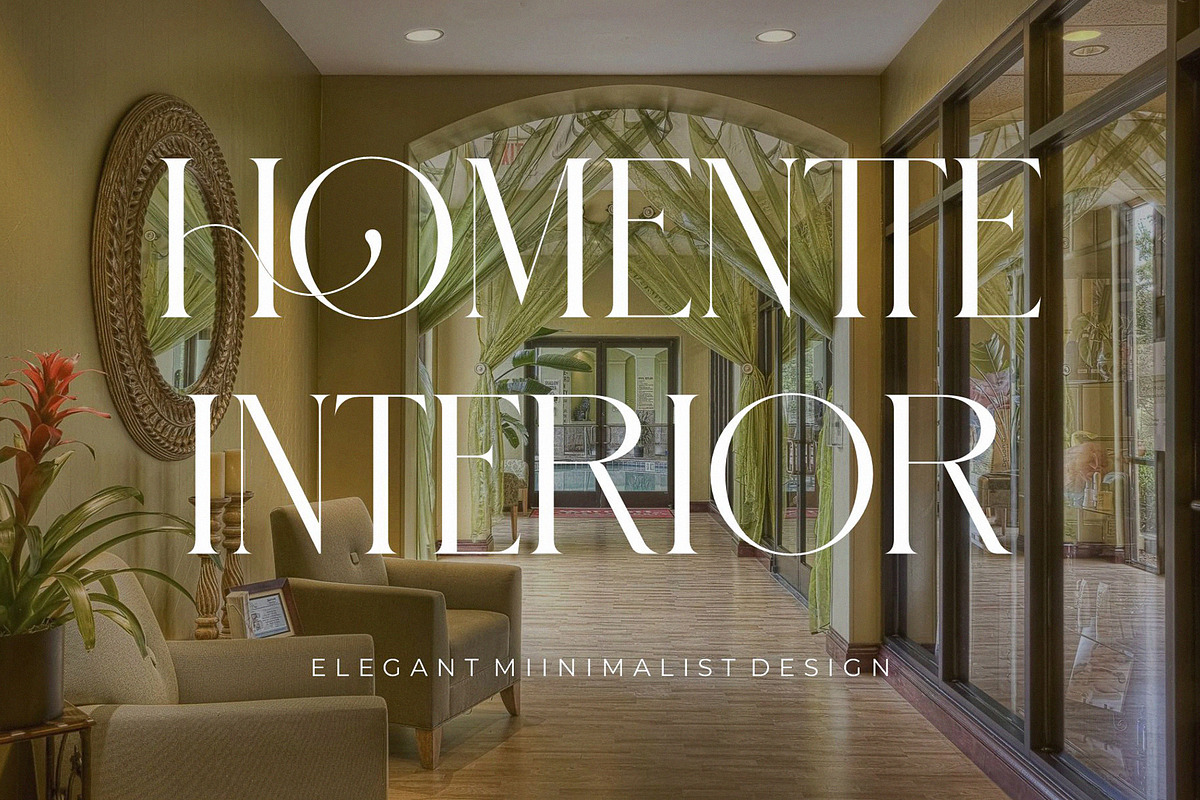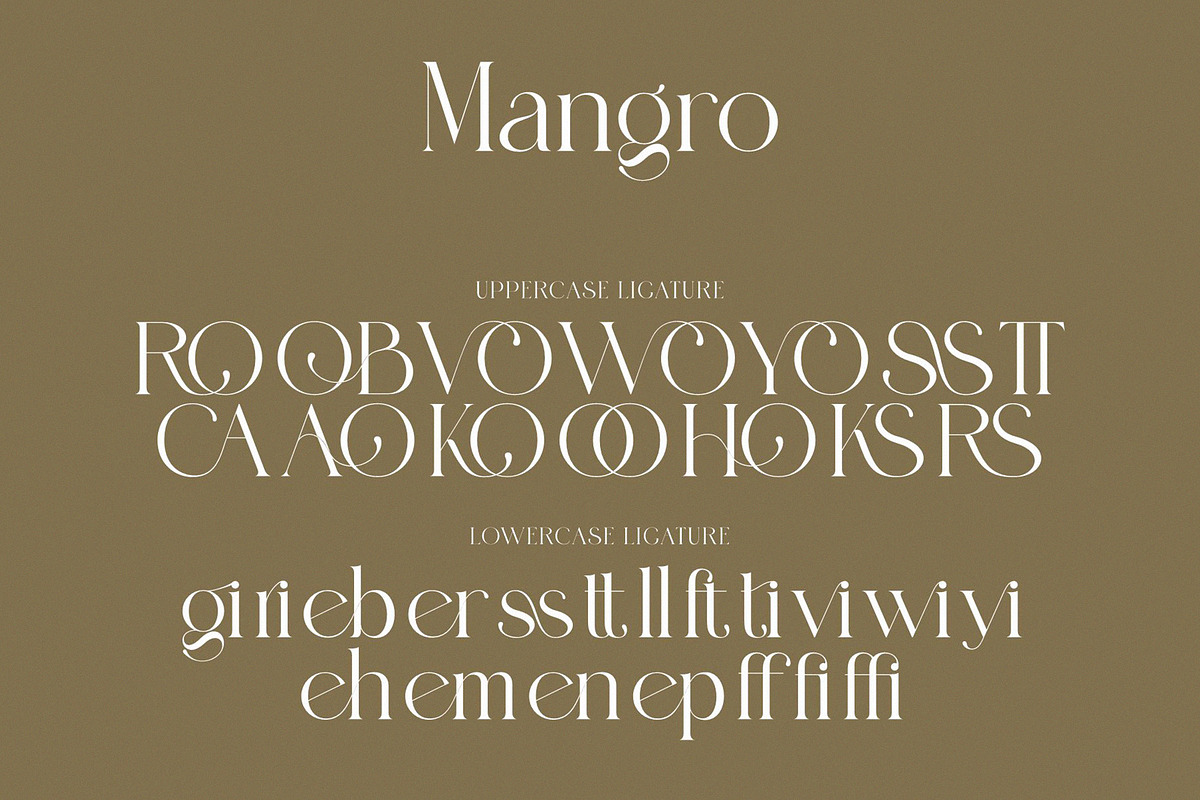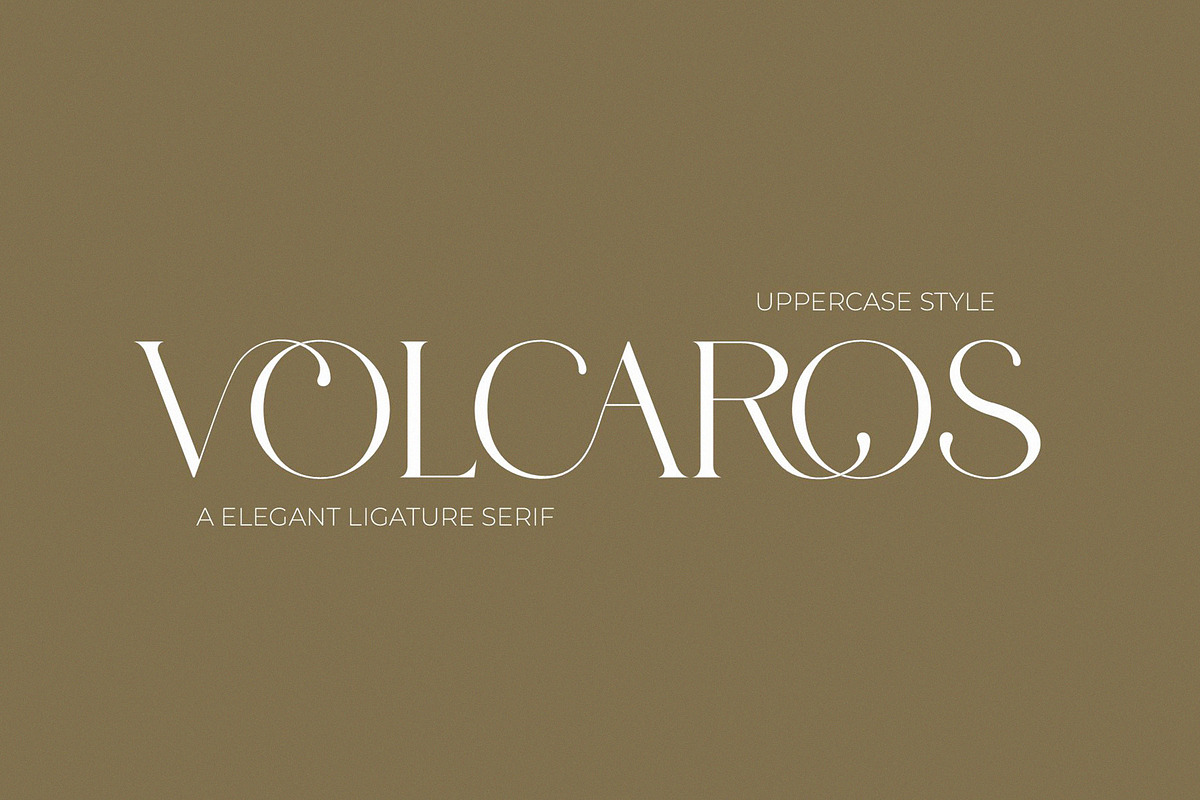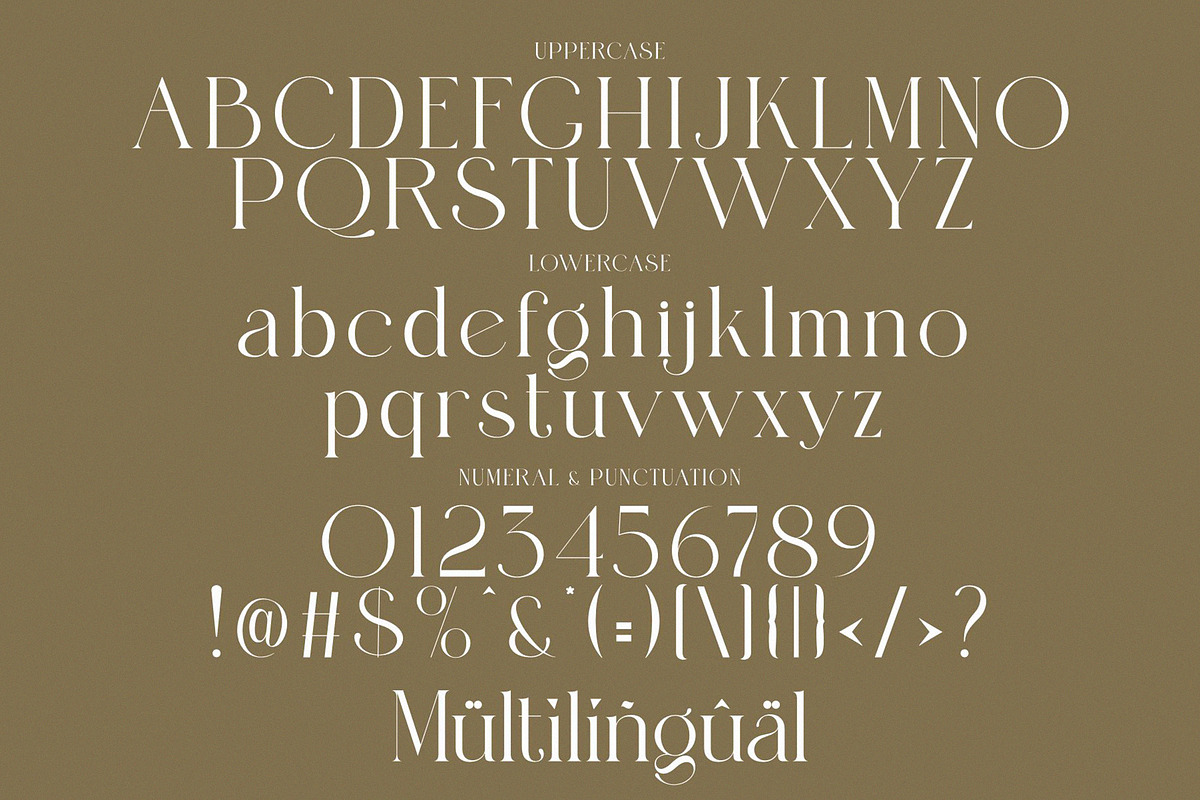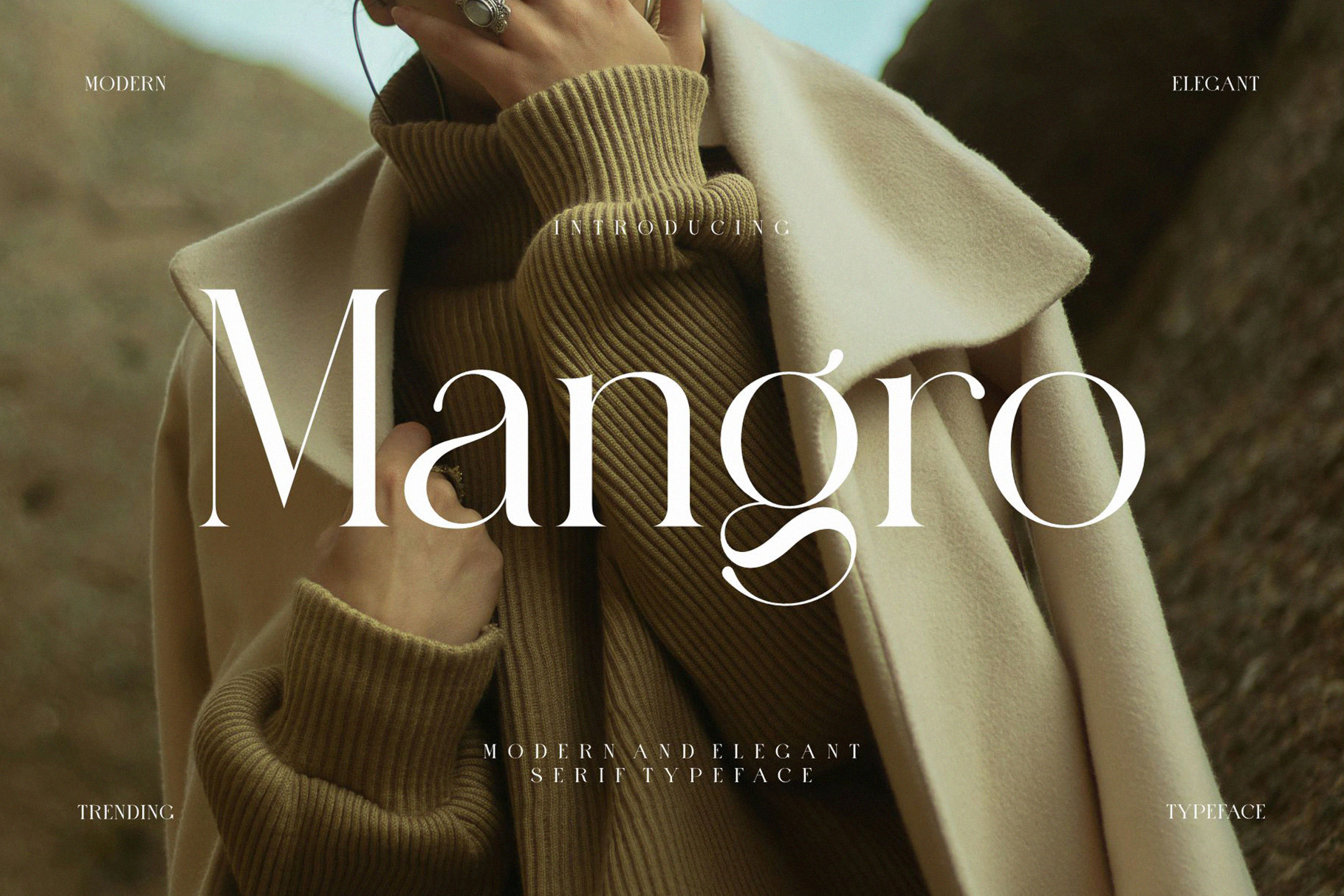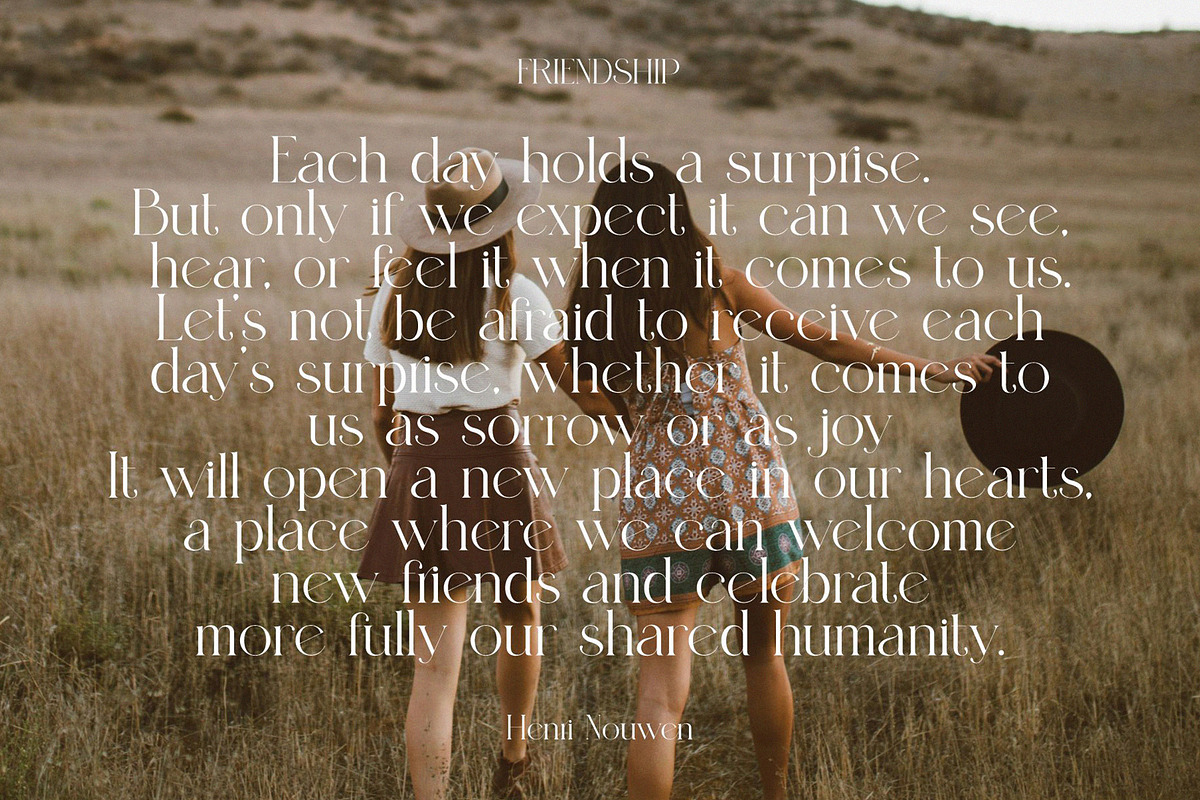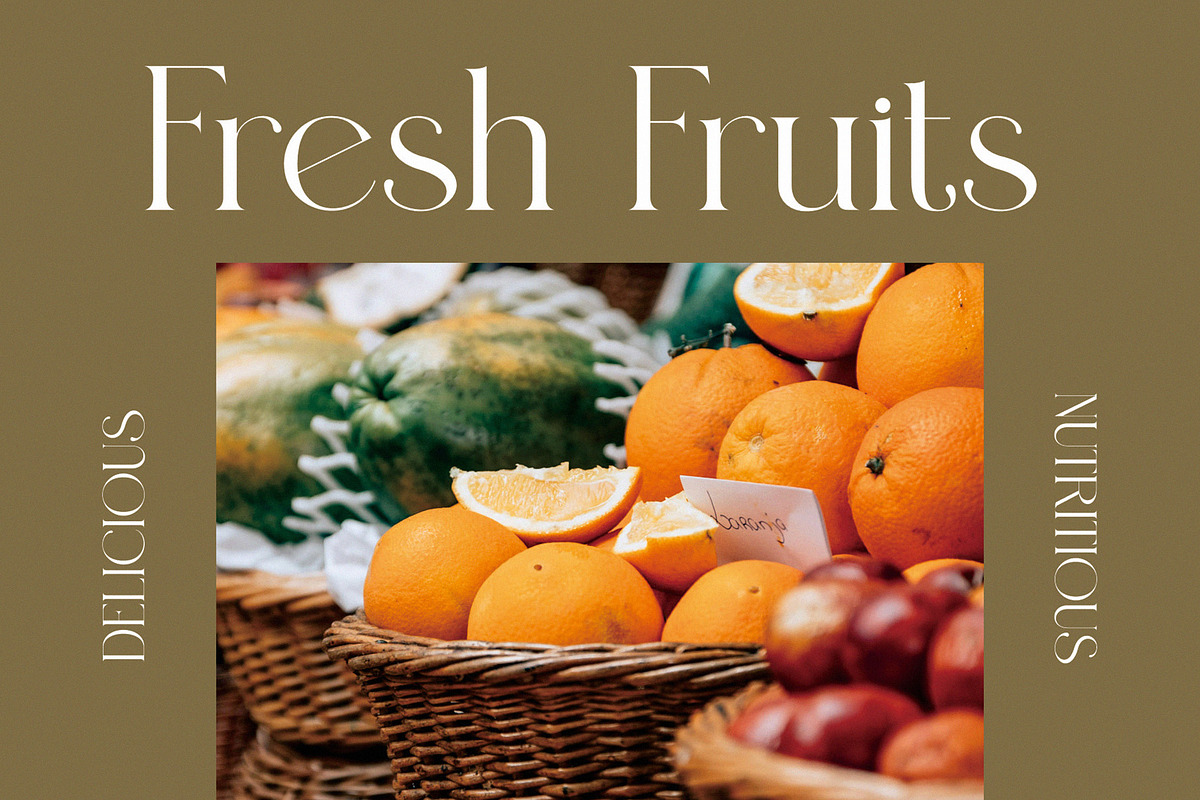
Mangro Elegant Serif Typeface
Mangro Modern and Elegant Ligature Serif Typeface inspired by the famous minimalist logo perfect for the purposes of designing templates, brochures, videos, advertising branding, logos, invitation, layout design, elegant crafting, beauty design and other